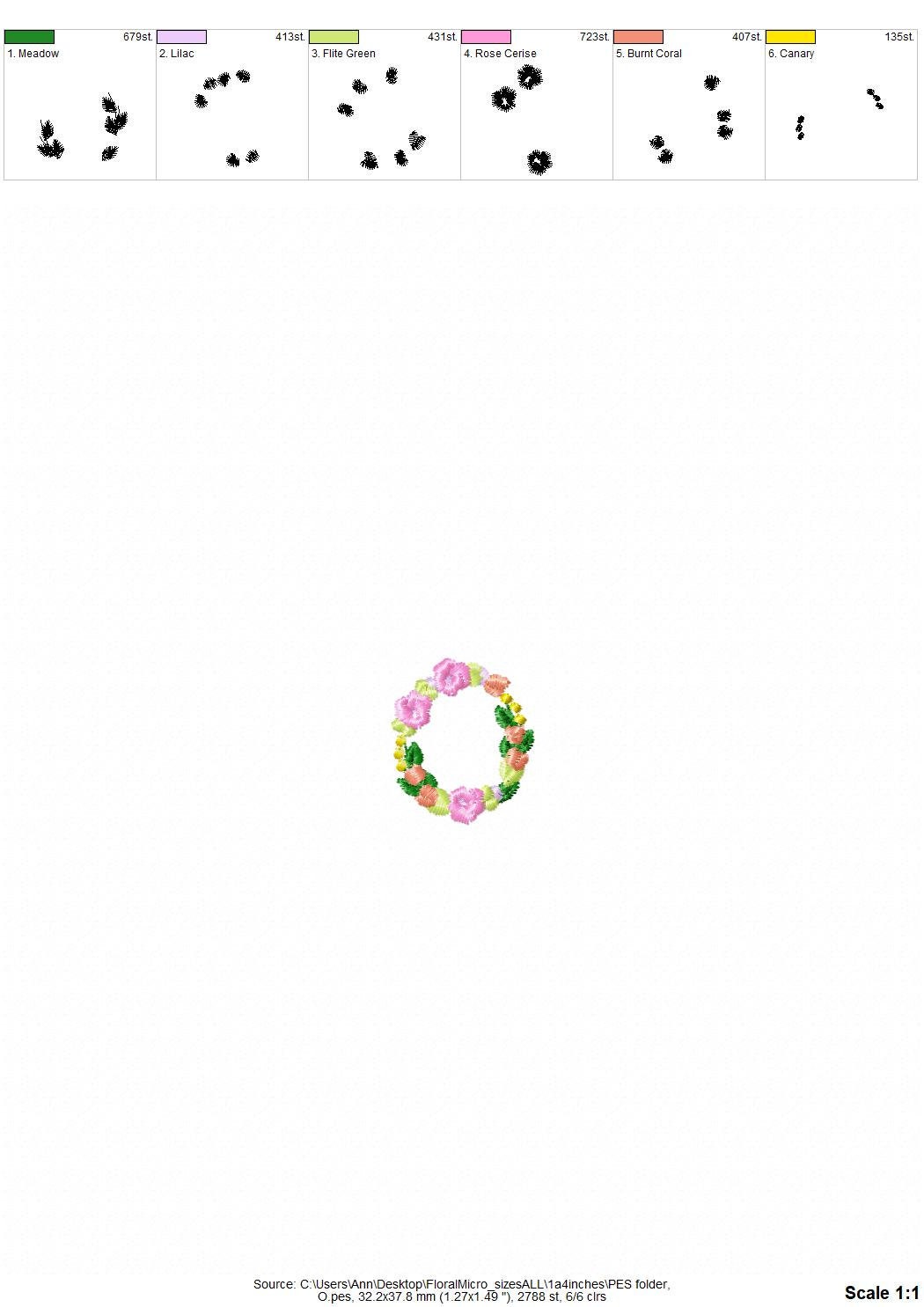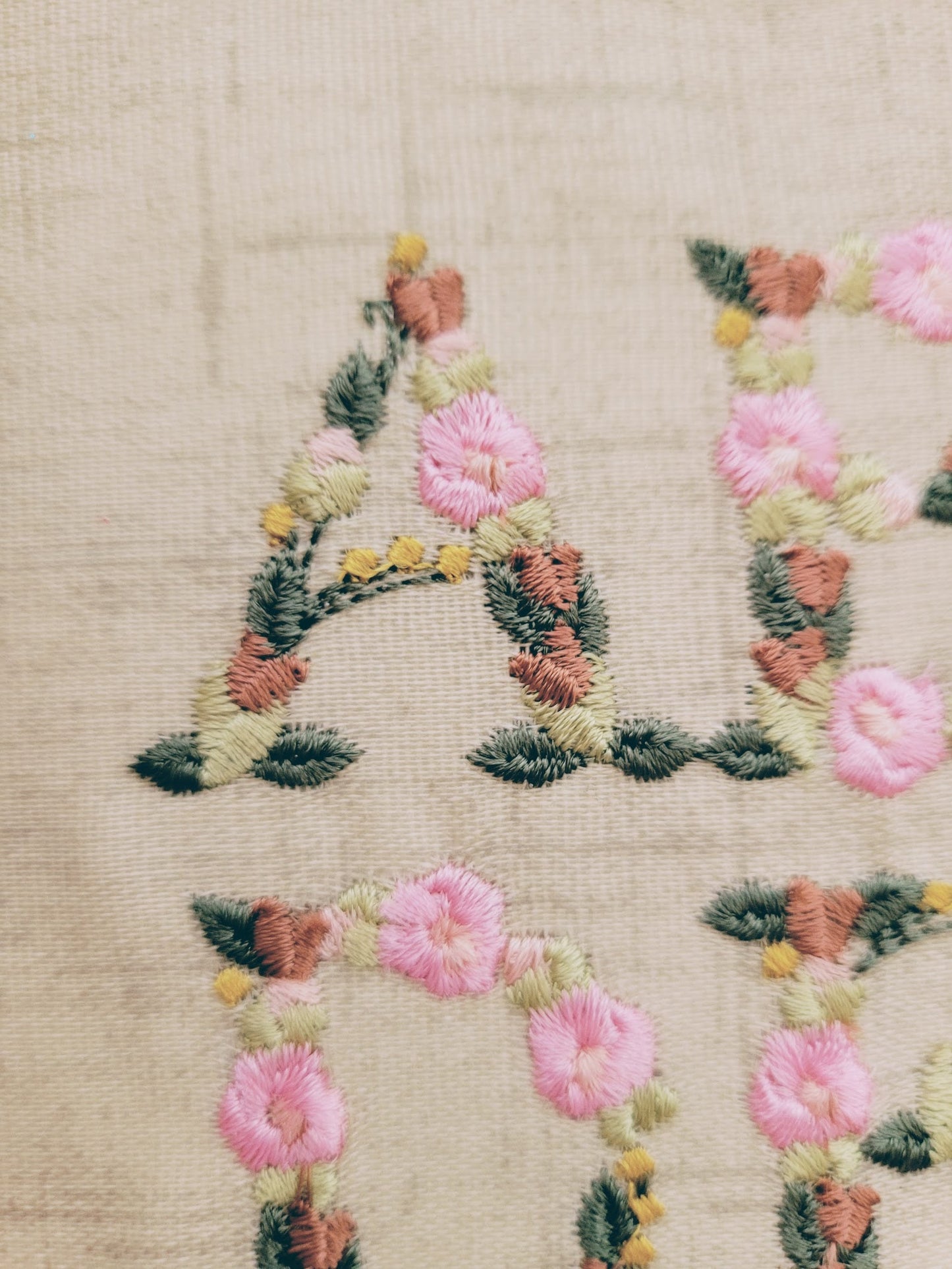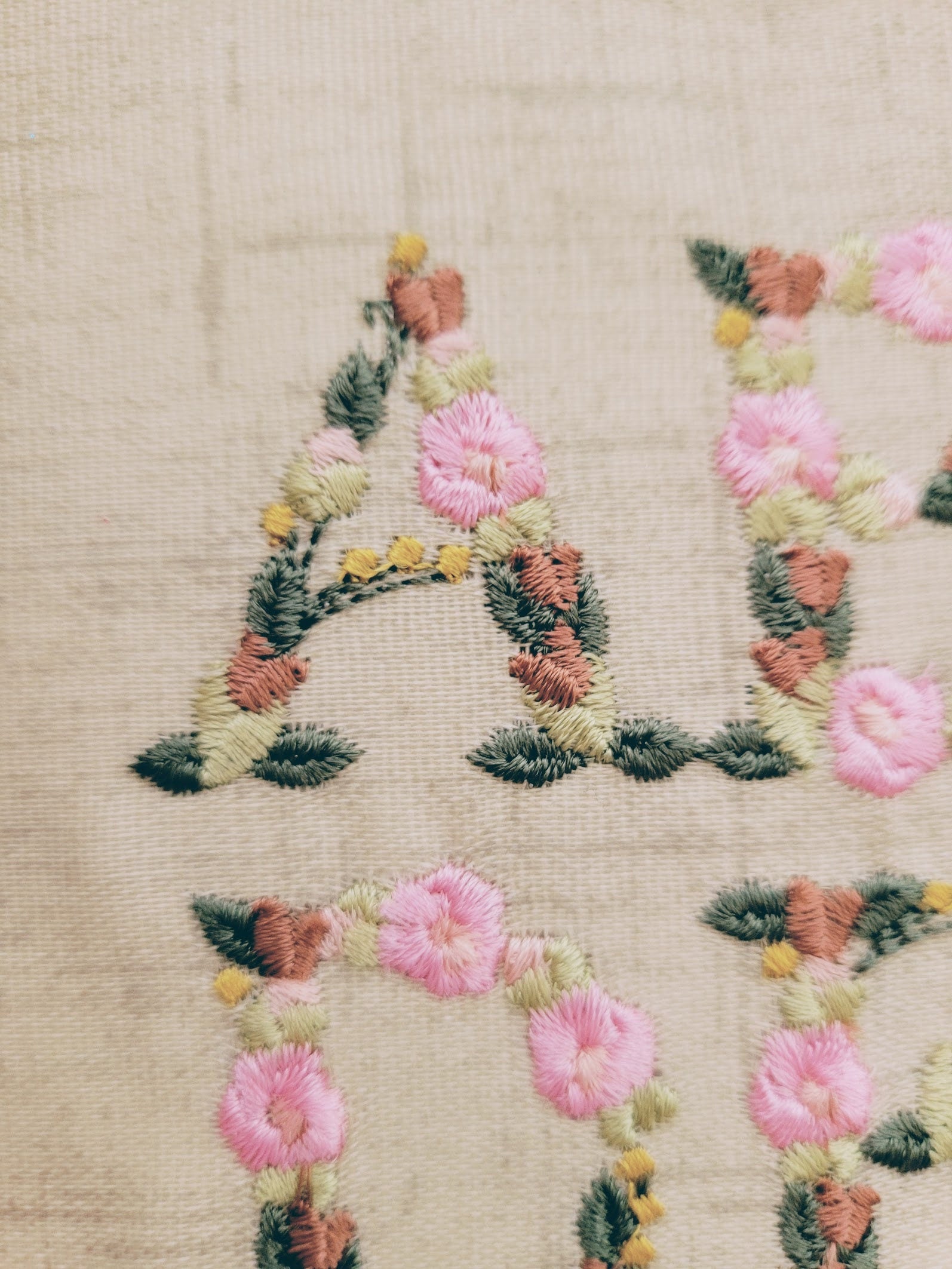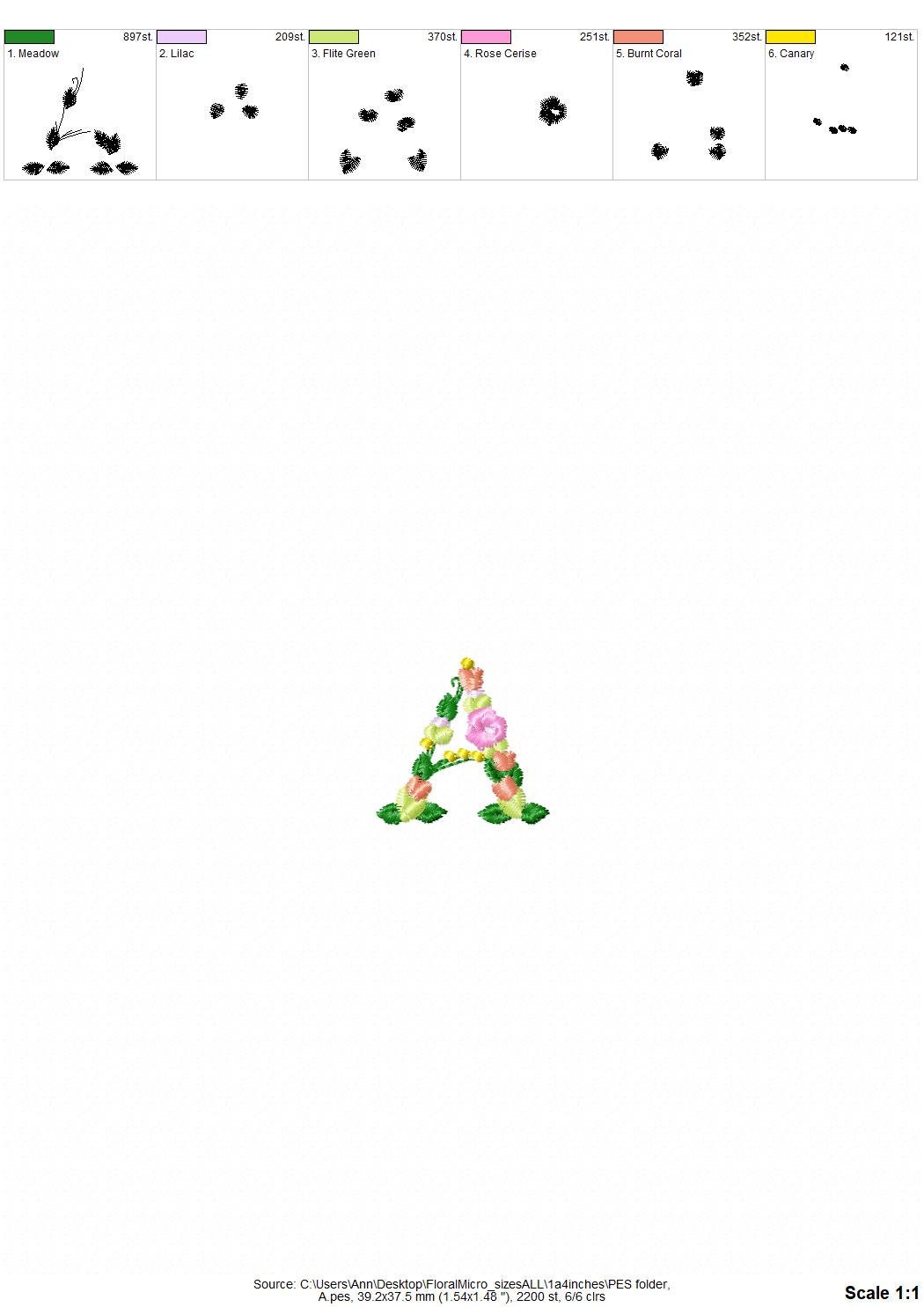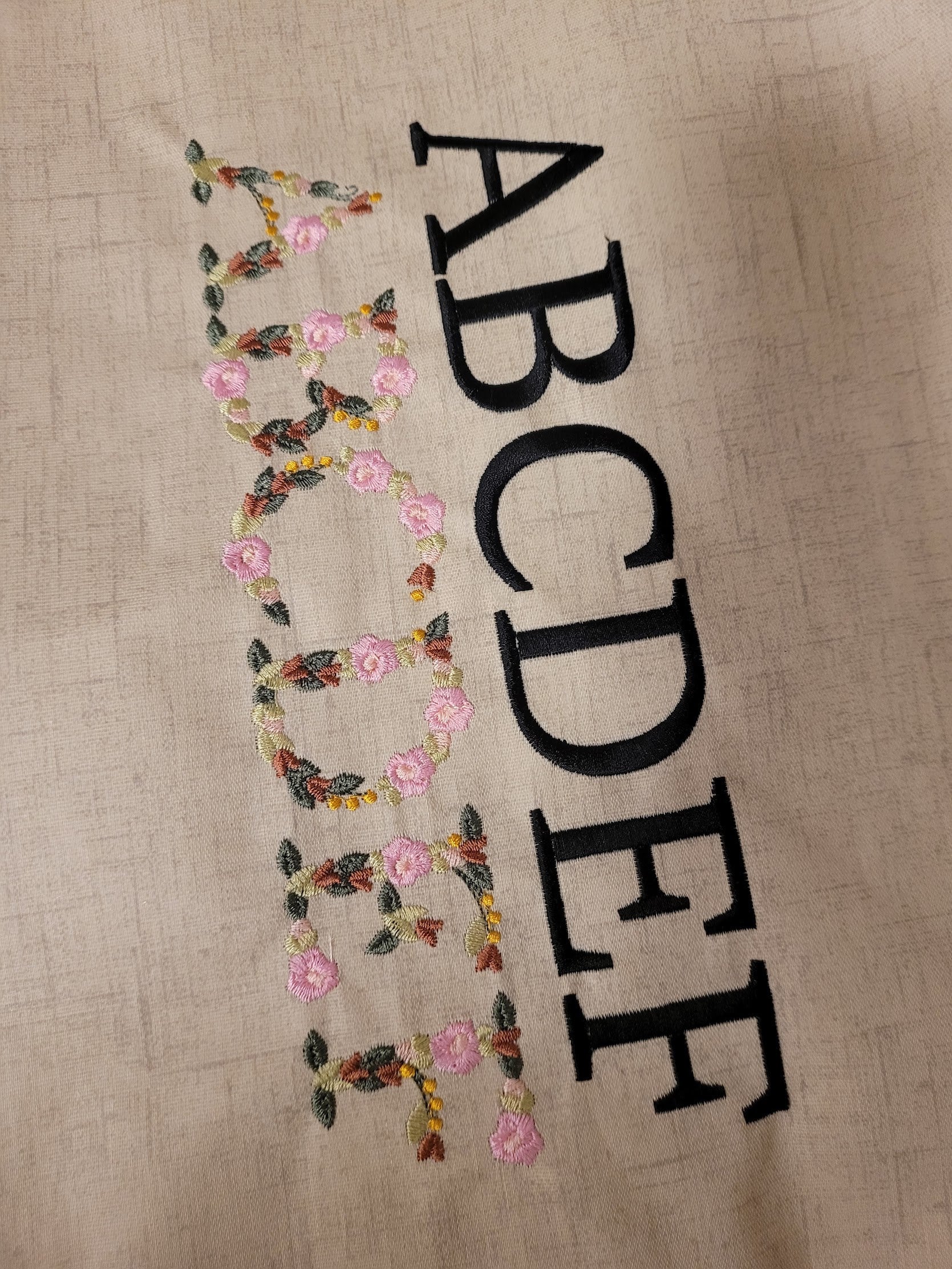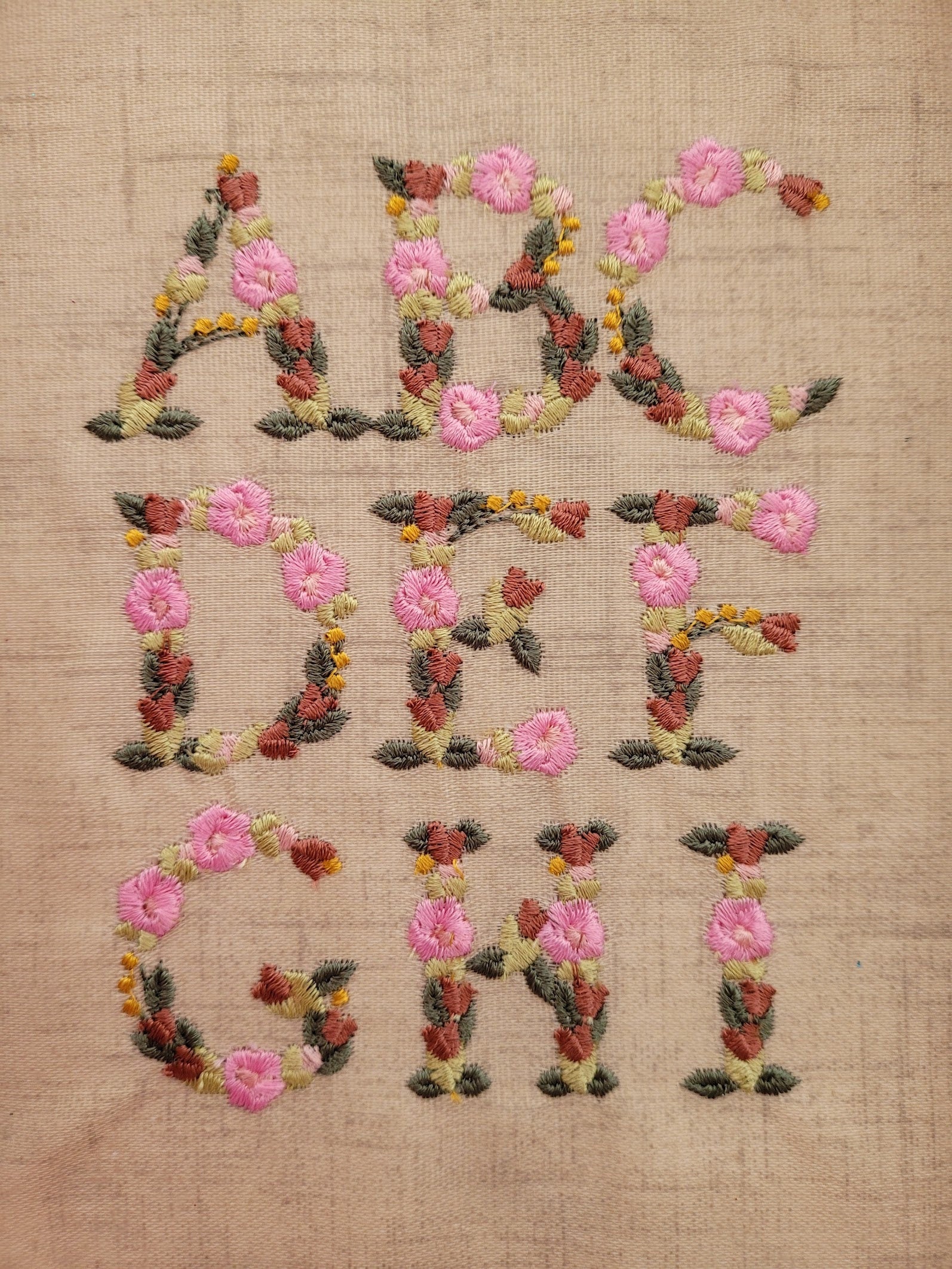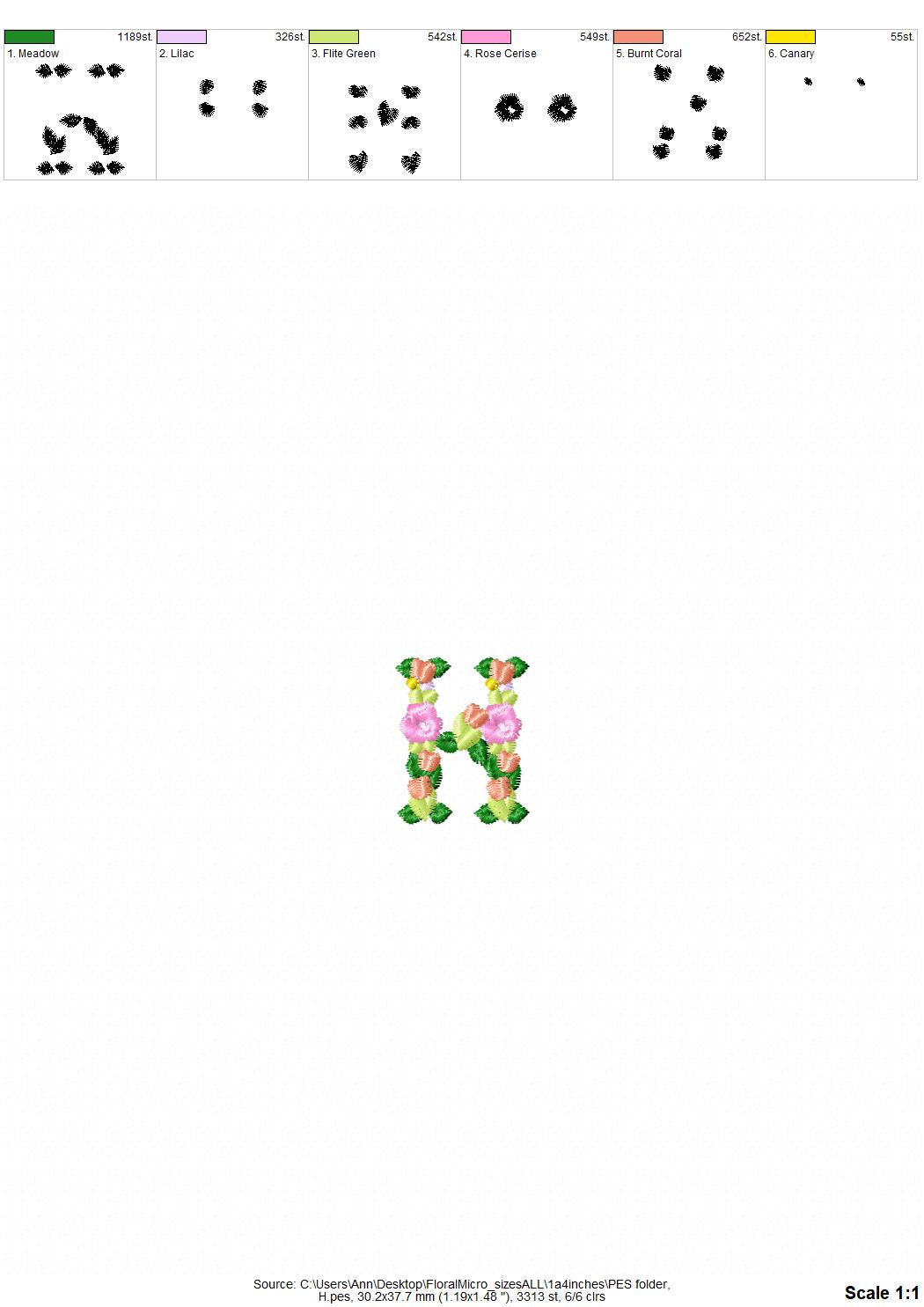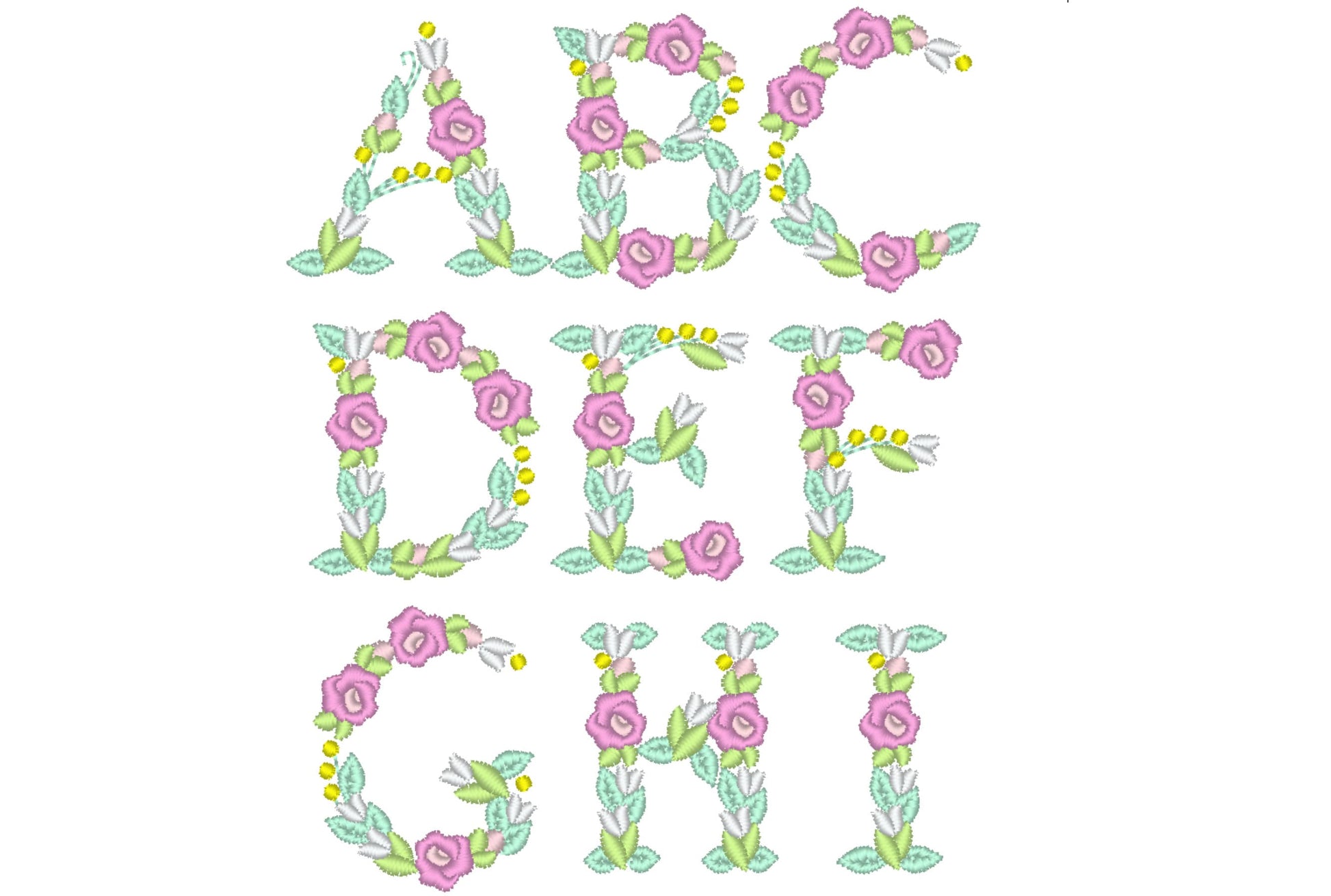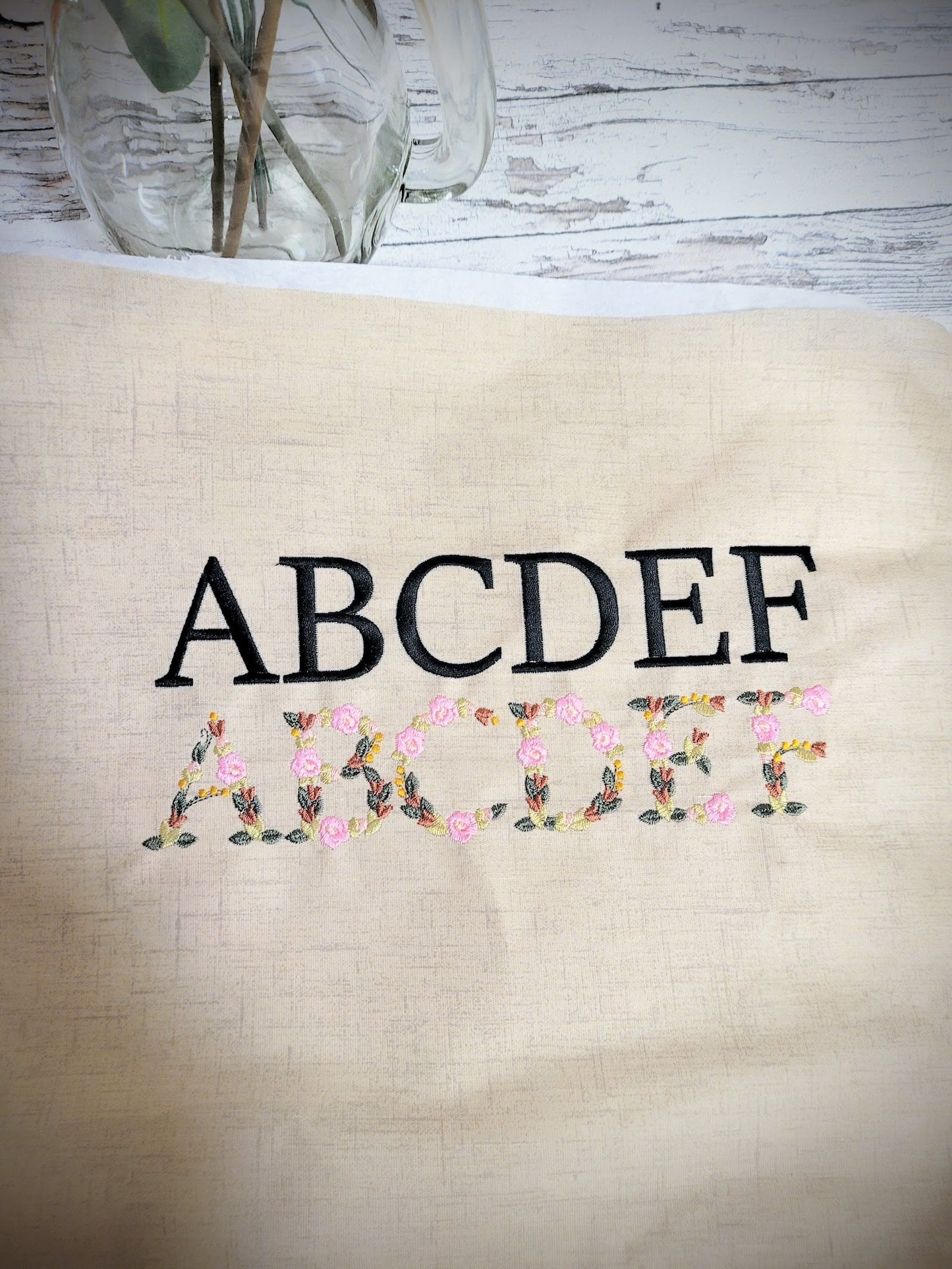
Mini Roses Floral Font
A mini floral font with tiny roses, in an old-fashioned liberty style. Pretty for girls' names, baby gifts, towels and monograms.
• Mini roses floral font
I love the design. The leaves and petals stitched out nicely. I only wish the petals were a little more dimensional. I will try to use a different stabilizer or possibly something under the stitching to keep them from being as flat on my project.